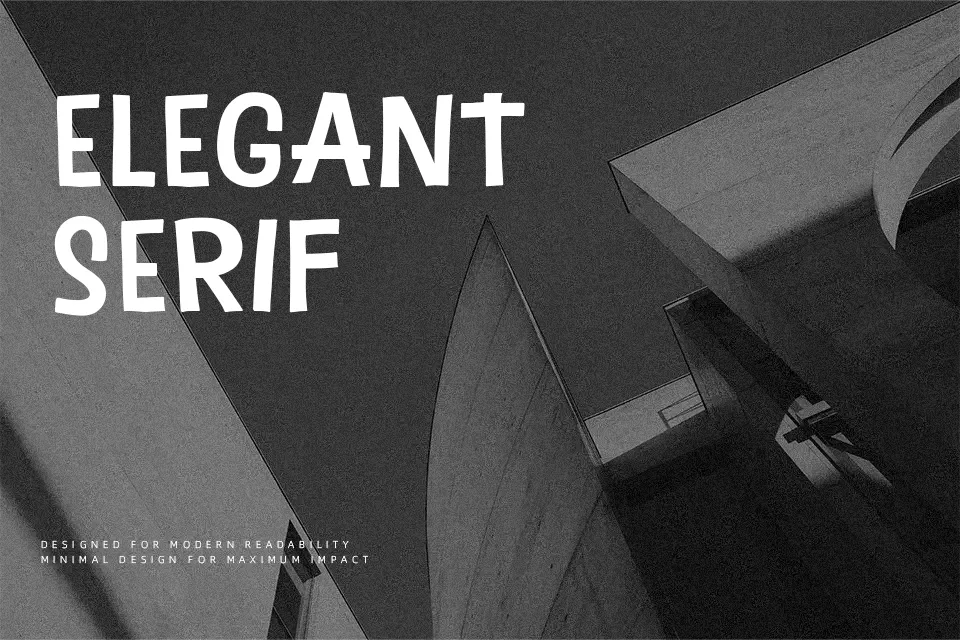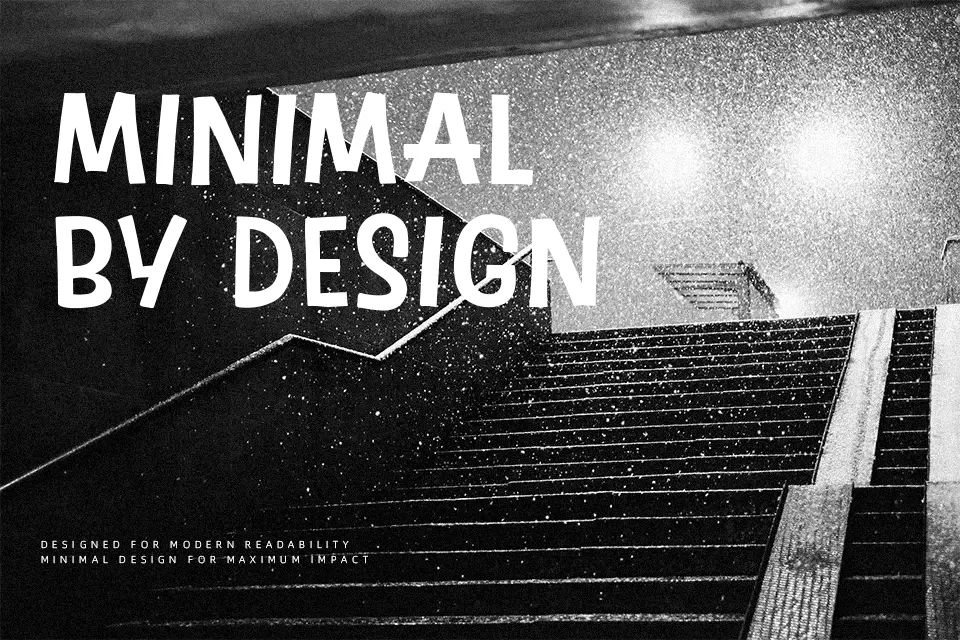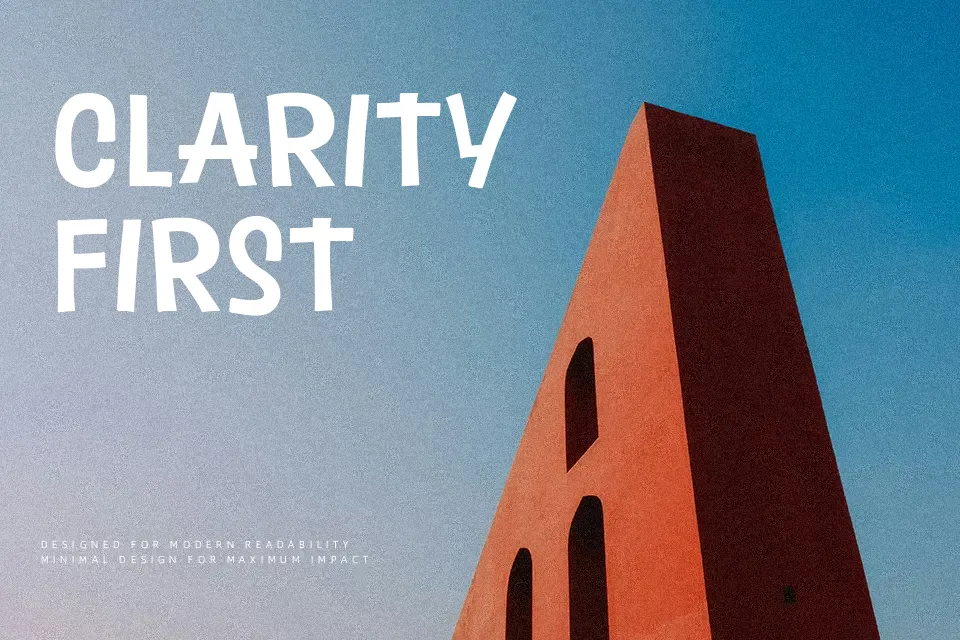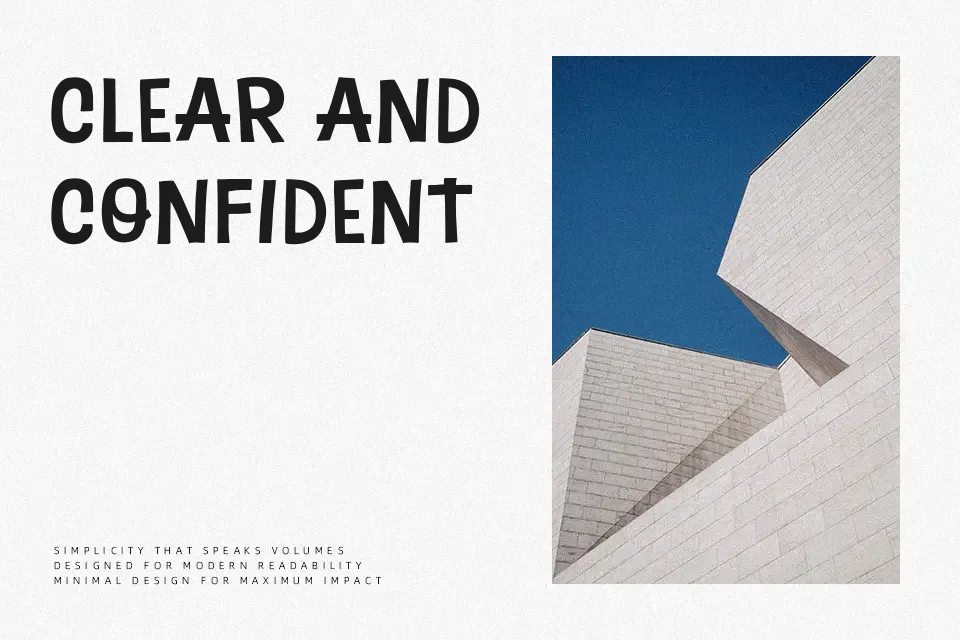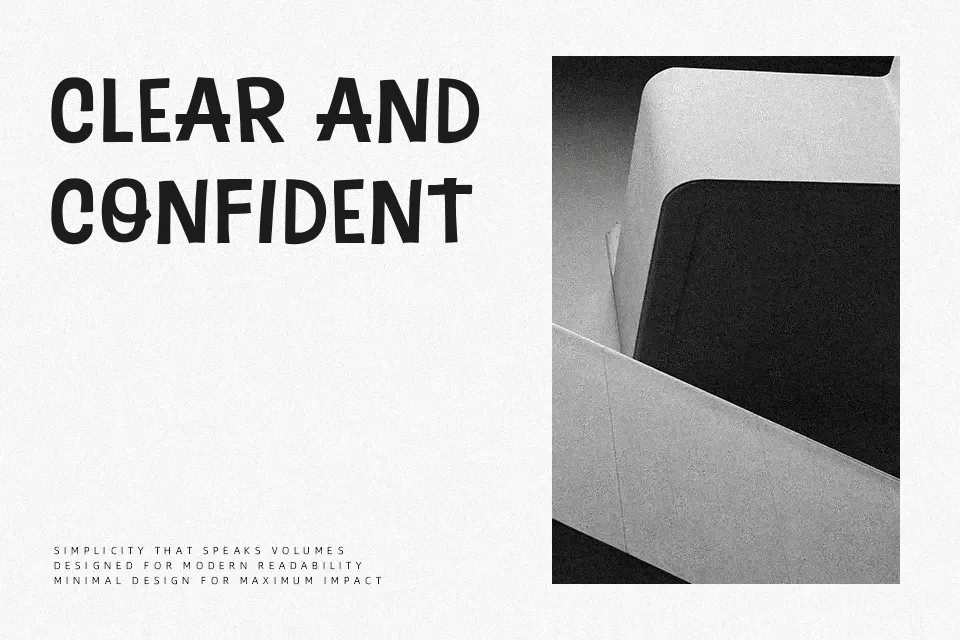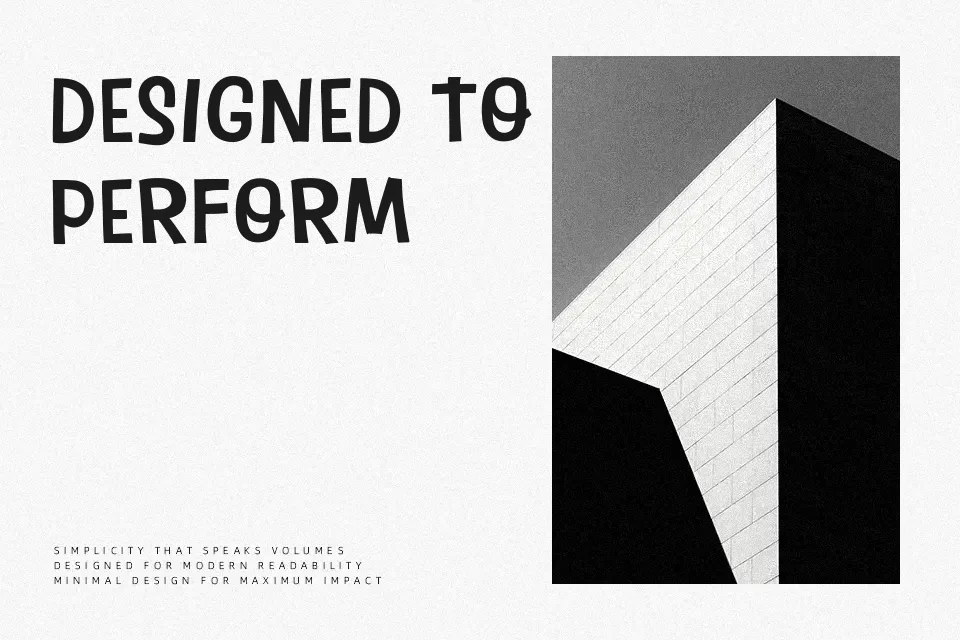
Brown Coffee Font
Designed by Khurasan™
Brown Coffee is a chunky, rounded display typeface with consistent stroke weight and slightly irregular widths that give it a relaxed, hand-crafted character. Letters feel compact yet open, so short words and phrases read clearly even at a distance. The overall impression leans casual and playful rather than formal, making it a good fit for café logos, menu boards, warm product packaging, and friendly ad headlines. It works nicely when you want a bold, inviting title, but its heavy shapes and personality can feel overwhelming in long body text or very minimal, ultra-corporate layouts. If you like soft, rounded sans styles used in coffee and snack branding, this font sits in that same visual family but with a slightly more fun, illustrated vibe.
coffee shop logos and signage
packaging for snacks, drinks, and sweets
friendly headlines on posters and banners
casual social media graphics for food brands
formal corporate or legal documents
highly minimal or tech-focused interfaces
very small caption text where detail matters
Perfect for branding, headline, and logo, with a creative and display style.